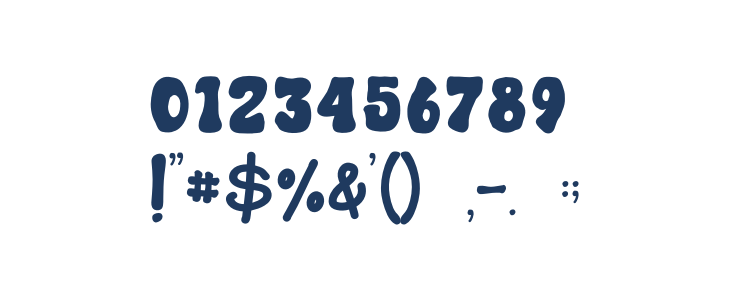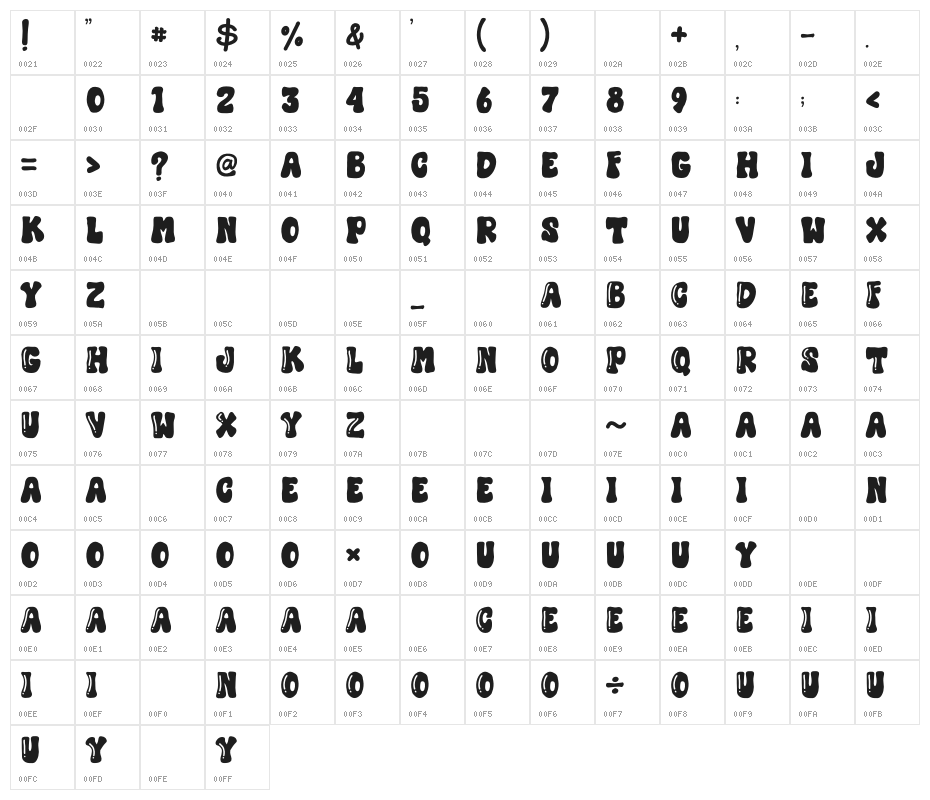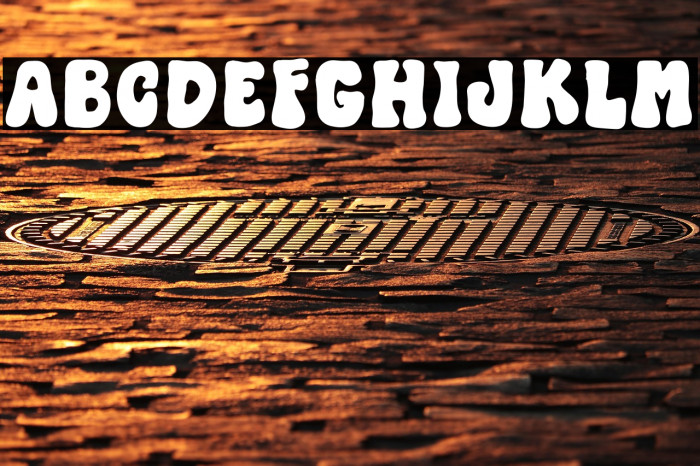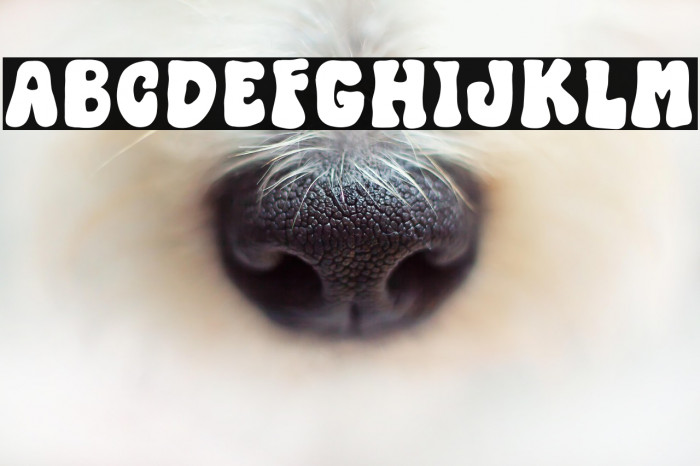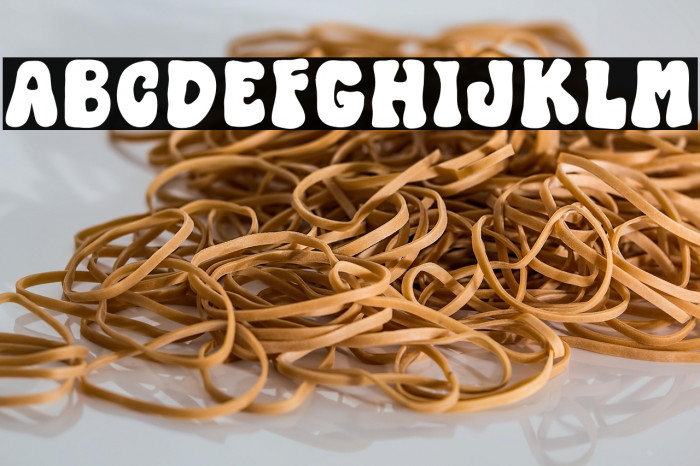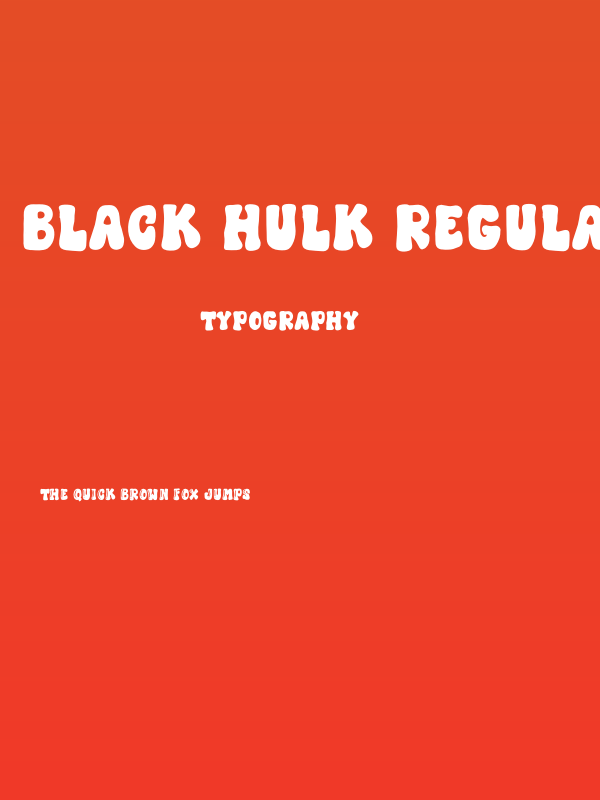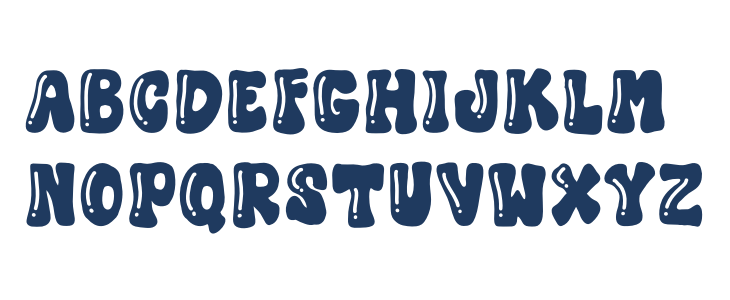
Black Hulk Regular Font
Black Hulk Regular Description
This font features bold, rounded characters with a playful and chunky appearance. The letters are heavily weighted, giving them a strong presence on the page. The style is reminiscent of retro or vintage designs, with a touch of whimsy due to the slightly irregular shapes and curves. The numbers and special characters maintain the same bold and rounded aesthetic, ensuring consistency across all glyphs. This font is highly decorative, making it suitable for eye-catching designs.
| Overall Style | Vintage, Decorative |
| Proposed Projects | Ideal for posters, logos, children's books, and any project requiring a bold, attention-grabbing typeface. |